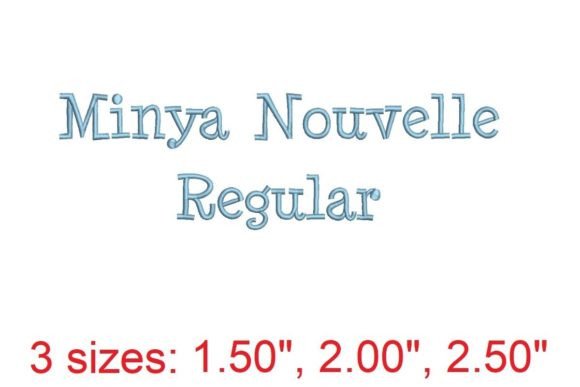
Minya Nouvelle RG: A Stylish Embroidery Font
As an embroidery designer with years of experience, I always approach a new machine embroidery design with a critical eye. Minya Nouvelle RG caught my attention for its elegant, modern aesthetic and potential to elevate a wide range of projects. Whether you're working on custom apparel, personalized gifts, or small business merchandise, this font offers a refined look that can enhance the visual appeal of your finished product.
The First Impression: A Bold, Elegant Choice
Minya Nouvelle RG immediately conveys a sense of sophistication. The lettering is clean, with a slightly rounded edge that gives it a friendly yet professional feel. It’s not overly ornate, but it has enough detail to stand out without being overwhelming. This makes it ideal for projects that require a balance between style and readability.
The font’s layout feels well-proportioned, with consistent spacing that ensures clarity when stitched. It works especially well in larger sizes, making it perfect for tote bags, sweatshirts, and other items where the text needs to be visible from a distance. However, it also holds up in smaller formats, which is great for baby items, patches, or embroidered tags.
Real-World Use: From Tote Bags to Holiday Gifts
I tested Minya Nouvelle RG on a variety of fabrics and project types. For a custom tote bag design, the font looked sharp and polished, with smooth satin stitches that didn’t fray or distort. On a cotton sweatshirt, it maintained its shape and contrast, even with a light-colored thread on a dark background.
For a baby onesie, the font’s soft edges made it feel more approachable and gentle, which is important for nursery decor. When used on a holiday gift, such as a decorative pillow cover, it added a touch of class that felt both handmade and professional.
This font is versatile enough to work on caps, aprons, and even kitchen towels. Its structure allows it to adapt to different surfaces, though it may require some adjustments for curved areas like hat brims or round patches.
Where to Use It Carefully
While Minya Nouvelle RG is generally reliable, there are situations where it may not perform as well. On small hoop sizes, the font’s details can become compressed, leading to less crisp results. If you’re working on a patch or a small applique design, you may need to adjust the size or simplify the letters slightly.
On textured or stretchy fabrics, the stitch density might cause the design to pucker or lose definition. It’s best to test it on a scrap piece of fabric before committing to a final project. Thin or dark materials may also require careful consideration of thread color and stabilizer use to ensure the design stands out clearly.
If you’re planning to use it on layered garments or curved surfaces, take extra care with the placement and stitching order. The font’s detailed corners can sometimes get lost if not handled properly, especially in tight spaces.
Impact on Visual Appeal and Customer Perception
Minya Nouvelle RG adds a level of polish that can significantly boost the perceived value of your handmade product. Customers often associate clean, well-executed embroidery with quality, and this font helps reinforce that impression. Whether you’re selling on Etsy, at a craft fair, or running a small shop, using a font like this can make your designs stand out from the crowd.
It also enhances brand consistency. If you’re creating a line of personalized gifts or custom apparel, having a uniform font across all items helps build recognition and trust. This is especially important for digital product sellers who rely on printable mockups and design assets to showcase their work.
When used correctly, Minya Nouvelle RG can make your finished product feel more professional and refined. It’s a great choice for commercial embroidery projects where presentation matters, and it can help increase buyer engagement by offering a visually appealing option that feels both unique and high-quality.
Practical Designer Notes
Before using Minya Nouvelle RG in any project, I recommend testing it on a scrap piece of fabric. This will help you see how the stitches interact with the material and whether the design looks as intended. Pay close attention to the thread color contrast—especially on dark or light backgrounds—and adjust as needed for the best visual impact.
Review the stitch density to ensure it’s appropriate for the fabric type. Some fabrics may require a lighter or heavier fill stitch to prevent puckering or distortion. Check the hoop size to make sure the design fits comfortably without being stretched or compressed.
Inspect the small details, such as corners and curves, to ensure they remain clear and defined. Test the design in black and white mockups to see how it translates without color. This is especially useful for digital product previews or printable mockups.
Conclusion: A Versatile and Elegant Choice
Minya Nouvelle RG is a strong addition to any embroidery designer’s toolkit. Its elegant, modern look makes it suitable for a wide range of projects, from back-to-school essentials to holiday gifts and boutique merchandise. With proper care and attention, it can elevate your handmade products and help you stand out in a competitive market.